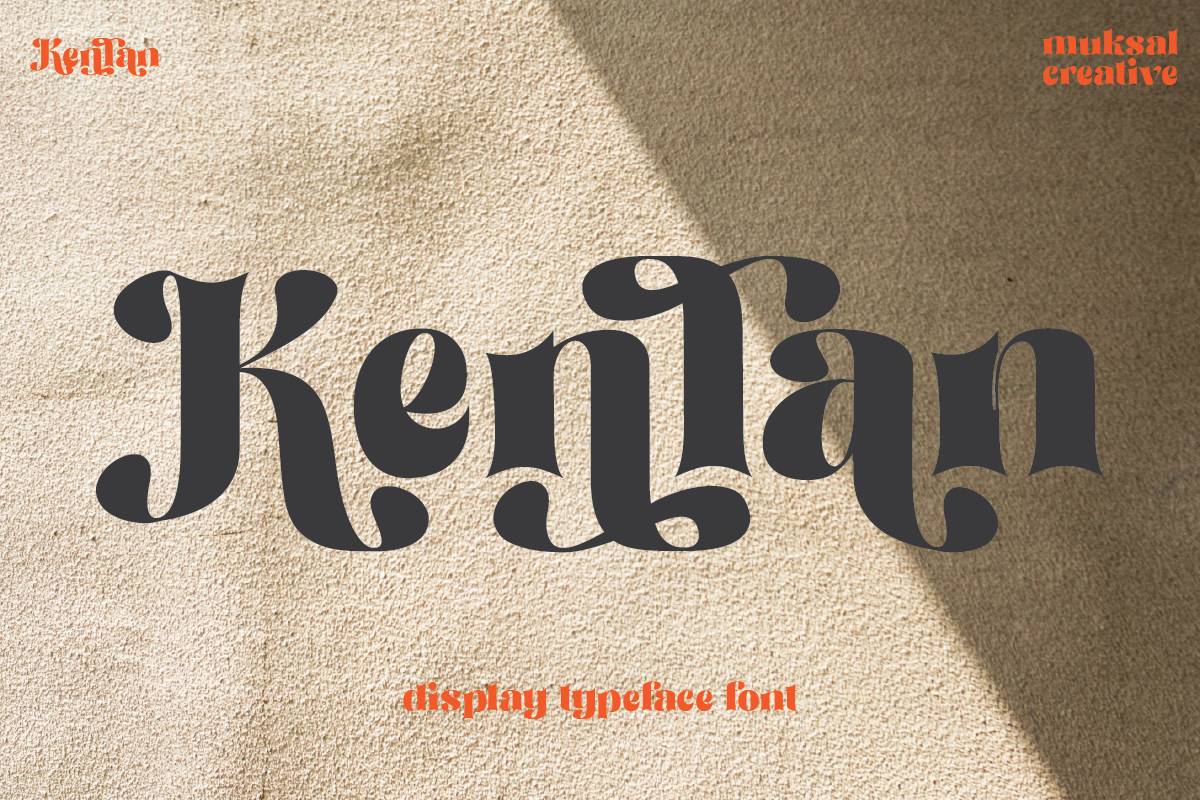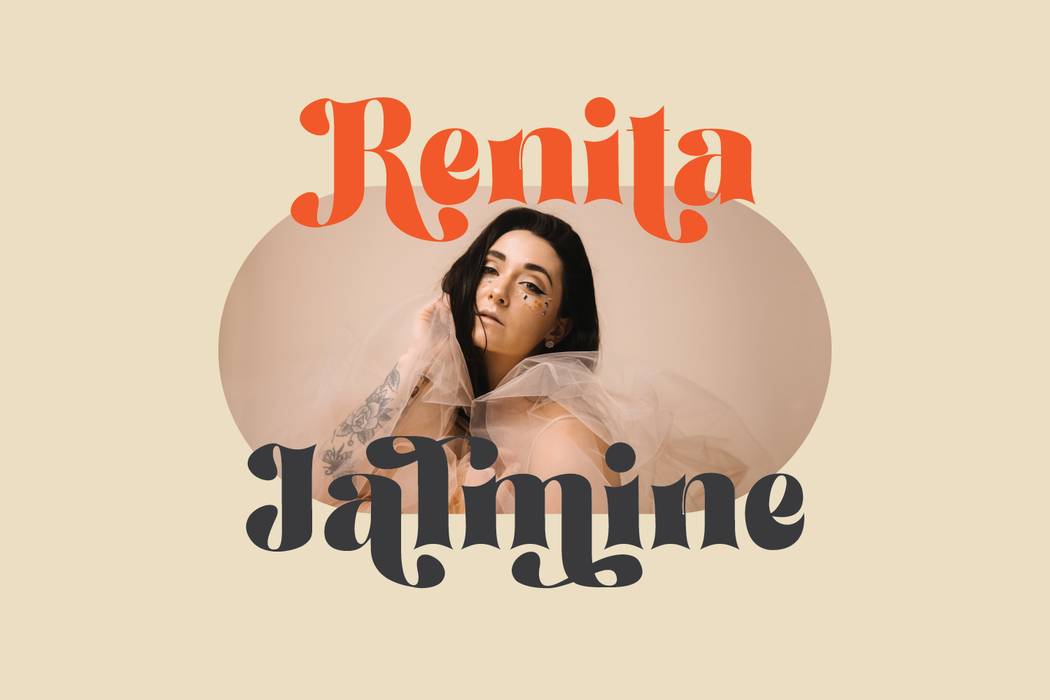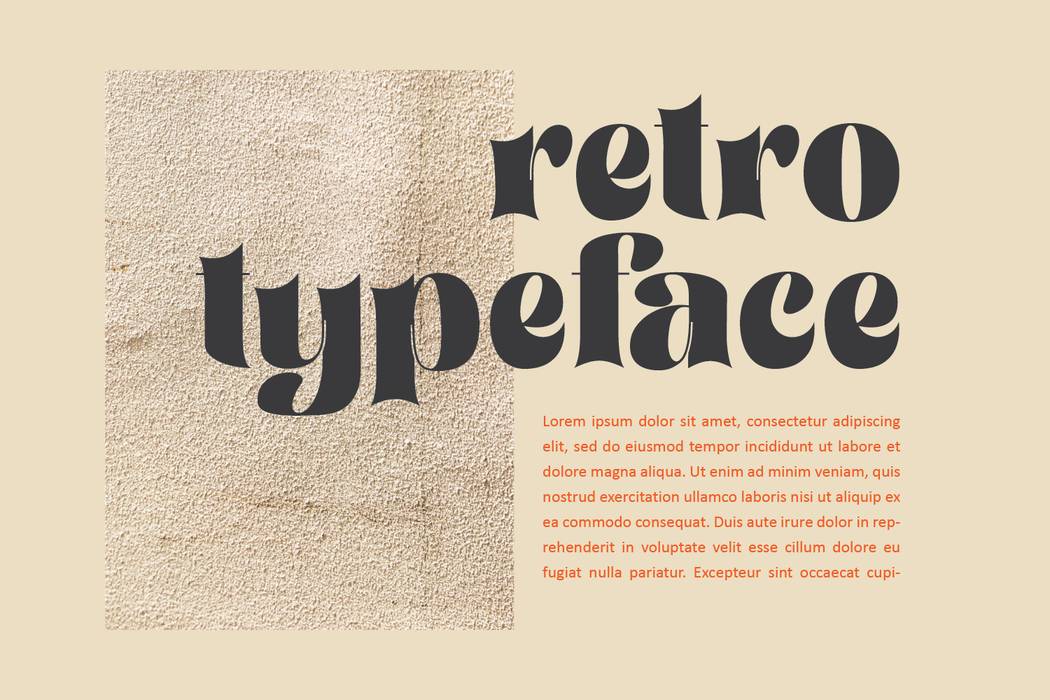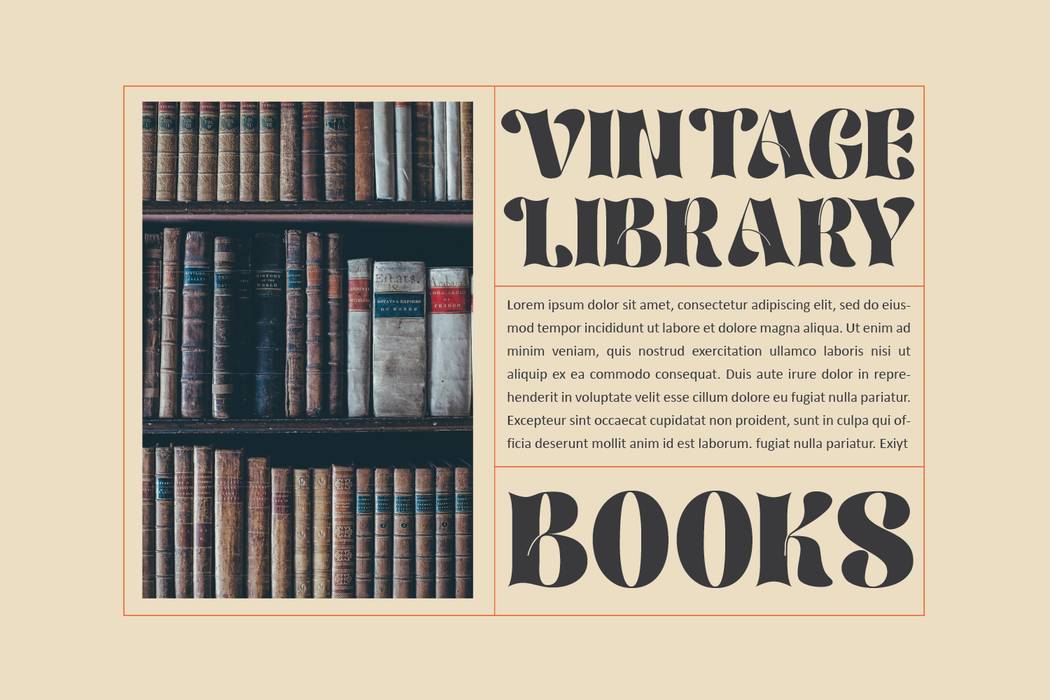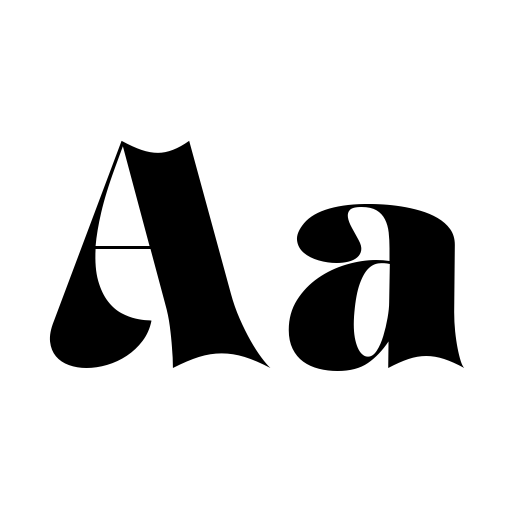
Kenlan is a bold, high-contrast serif font with a modern flair, featuring sharp, bracketed serifs and stylized, somewhat condensed letterforms. Its striking presence and unique details make it perfect for eye-catching headlines, logos, and branding that aim for a sophisticated yet distinctive look. This font works especially well in fashion, luxury, and editorial design where strong visual impact is key.
Kenlan Font
About Kenlan Font